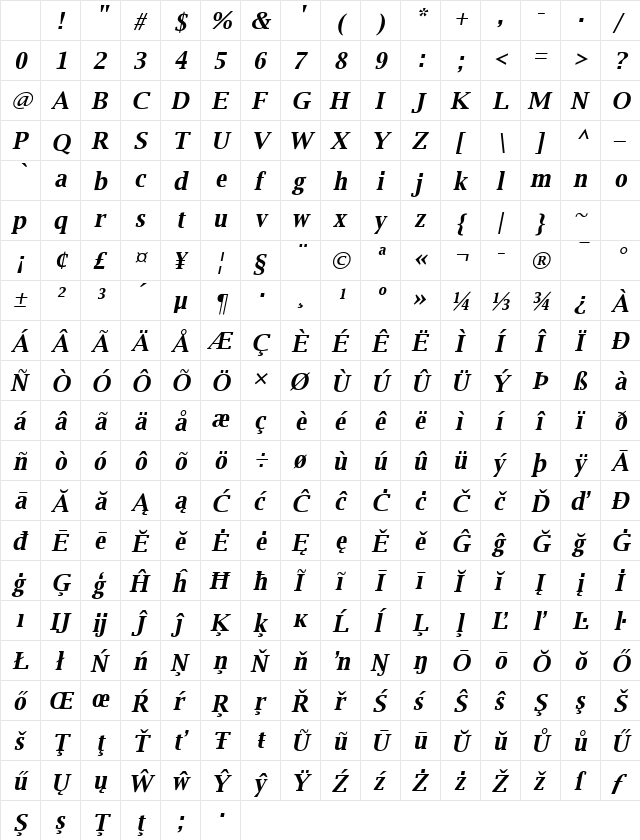
Complete Luxi Serif Bold Oblique glyph index. Displaying only characters natively supported by Luxi Serif Bold Oblique font.
Luxi Serif carries the refined structure of traditional serif typography, with bracketed terminals and considered proportions that communicate credibility and craft. The slanted form adds forward momentum and visual energy. Its bold stroke weight gives it real presence on the page.